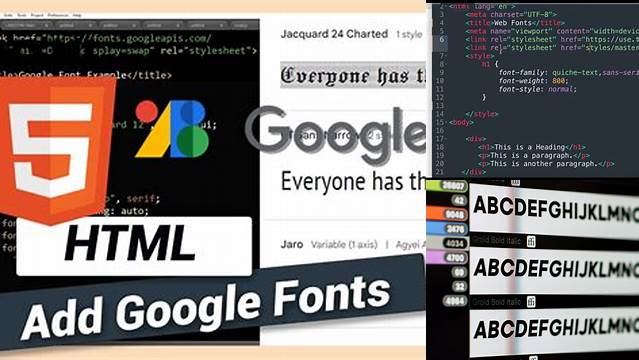
Hey everyone! Ever wondered how to spice up your website's look with some cool fonts? Well, you're in the right place! Today, we're diving headfirst into the world of Google Fonts and how to make them work their magic on your website using CSS. It's easier than you think, and the results are fantastic. Trust me, your website will thank you! Let's get started, shall we?
What are Google Fonts and Why Use Them?
So, what exactly are Google Fonts? Simply put, they're a massive, free library of fonts that you can use on your website. Google hosts these fonts, making them super easy to access and implement. The best part? They're free! You don’t need to pay any fees or licenses to use them, which is a huge win for anyone on a budget or just starting out.
Why should you use them? Well, first and foremost, they look fantastic. The fonts are of high quality and give your website a professional, polished look. But there’s more to it than just aesthetics. Using Google Fonts can also improve your website’s readability. The right font can make your content more engaging and easier to digest, which is crucial for keeping visitors on your site. Plus, Google Fonts are optimized for web use, meaning they load quickly and won’t slow down your site. This is super important for user experience and also helps with SEO (Search Engine Optimization).
Accessibility is another key reason to use Google Fonts. They offer a wide range of fonts in different styles and languages, so you can choose fonts that are readable and accessible to a diverse audience. This helps you cater to a broader range of users. Using a font that supports various characters is essential for global accessibility. Furthermore, Google Fonts are updated regularly, so you always have access to the latest and greatest options. This constant evolution ensures your website’s typography stays fresh and on-trend. Considering all these points, using Google Fonts is a no-brainer for anyone looking to enhance their website's visual appeal and usability. Whether you're a seasoned web developer or a beginner, these fonts are a fantastic resource.
Step-by-Step Guide: How to Integrate Google Fonts into Your CSS
Alright, let's get into the nitty-gritty of how to use Google Fonts on your website using CSS. I’ll break it down step by step, making it super easy to follow along. You'll be adding beautiful typography to your site in no time, I promise!
First, head over to the Google Fonts website. Browse through the extensive collection and find the perfect font for your website. You can filter by categories like serif, sans-serif, display, handwriting, and monospace to narrow down your choices. Click on the font you like, and you’ll see a page with different styles and weights (like bold, italic, etc.). Select the styles you want to use by clicking the “+ Select this style” button. A panel will pop up at the bottom of the screen showing your selections.
Next, click on the panel at the bottom. You'll see two main ways to implement the font: using a <link>
tag or using the @import
method. Let's explore both! The <link>
method is the easiest. Google Fonts provides a snippet of code that you can copy and paste into the <head>
section of your HTML document. This is super clean and straightforward. Simply copy the <link>
tag and paste it into your HTML file. The other method is using @import
. Google Fonts also provides a code snippet that you can paste at the top of your CSS file. This imports the font directly into your stylesheet. Both methods do the same thing – they link your website to the selected fonts, making them available for use in your CSS.
Once you’ve linked the fonts, it’s time to use them in your CSS. In your CSS file, use the font-family
property to specify the font. For example, if you chose the “Roboto” font, you'd write font-family: 'Roboto', sans-serif;
in your CSS. The sans-serif
part is a fallback font. If the Roboto font doesn’t load for some reason, the browser will use a generic sans-serif font instead, ensuring your text still looks decent. Apply the font-family
property to any HTML element you want, such as the <body>
tag for the entire website or specific tags like <p>
(paragraphs) or <h1>
(headings). Remember to test your website on different browsers and devices to make sure the fonts display correctly. Sometimes, fonts render slightly differently across browsers, so it's a good idea to check. And there you have it! That’s how easy it is to integrate Google Fonts into your website! You’ll see your website transform with just a few lines of code.
Tips and Tricks for Optimizing Google Fonts
Alright, now that you know how to add Google Fonts, let's get into some tips and tricks to make sure you're using them effectively. We want your website to look amazing and also perform well, right?
First off, choose your fonts wisely. Don't go overboard! Stick to a maximum of two or three different fonts on your website. Using too many fonts can make your site look cluttered and unprofessional. Pair fonts thoughtfully. A good rule of thumb is to pair a serif font for headings with a sans-serif font for body text. Consider using the same font family with different weights and styles. This helps maintain consistency while adding visual interest. Always check the fonts' readability on different screen sizes and devices. What looks good on a desktop might not be as readable on a mobile device. Ensure your font choices complement your website's overall design and branding. The font should enhance the user experience, not detract from it.
Next, optimize for performance. While Google Fonts are optimized for web use, you can still do things to improve loading times. Only select the font weights and styles you actually need. For instance, if you only use regular and bold, don't load all the other weights. This reduces the amount of data your website needs to download. Consider preloading your fonts. By adding a `<link rel=